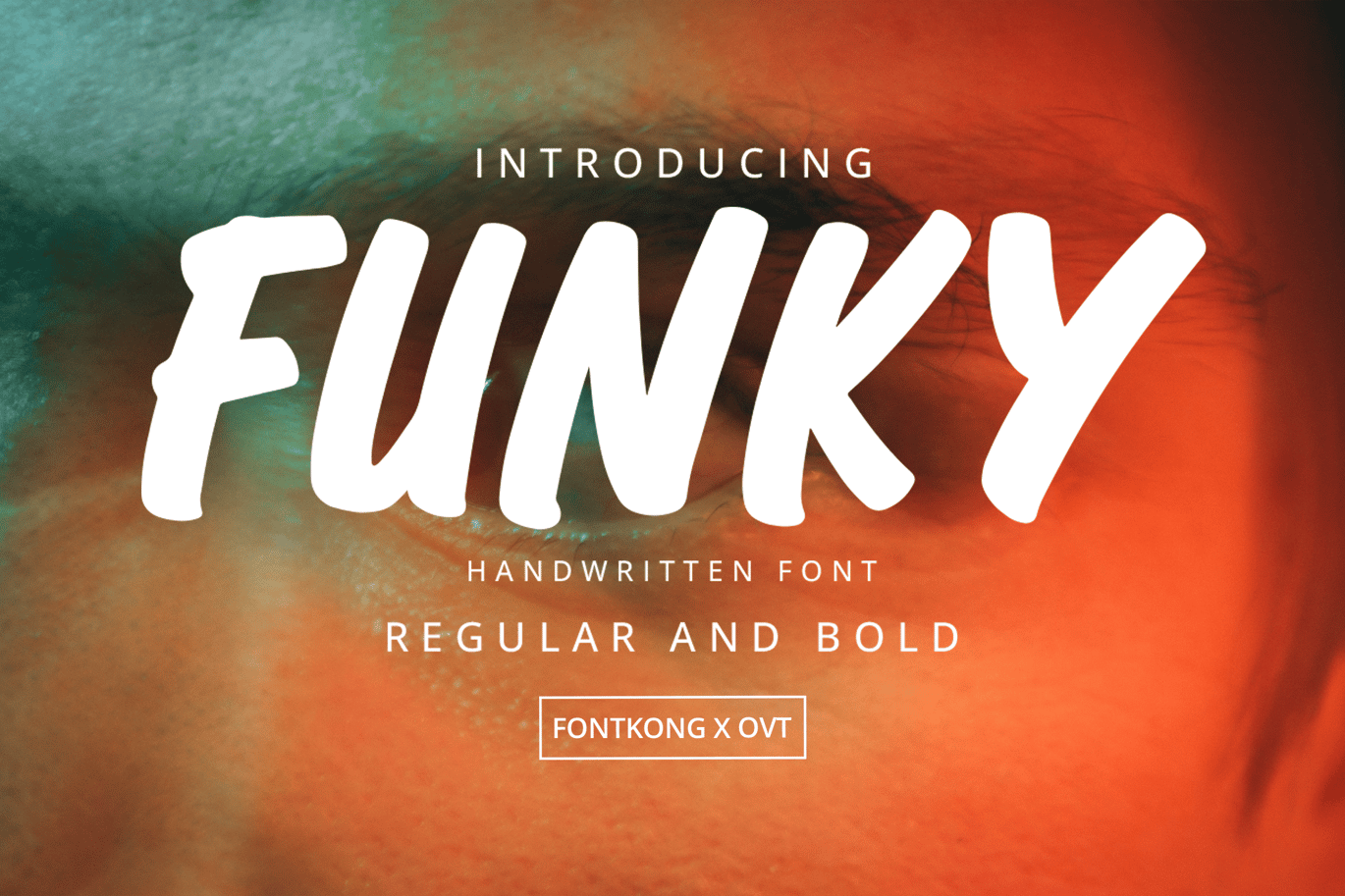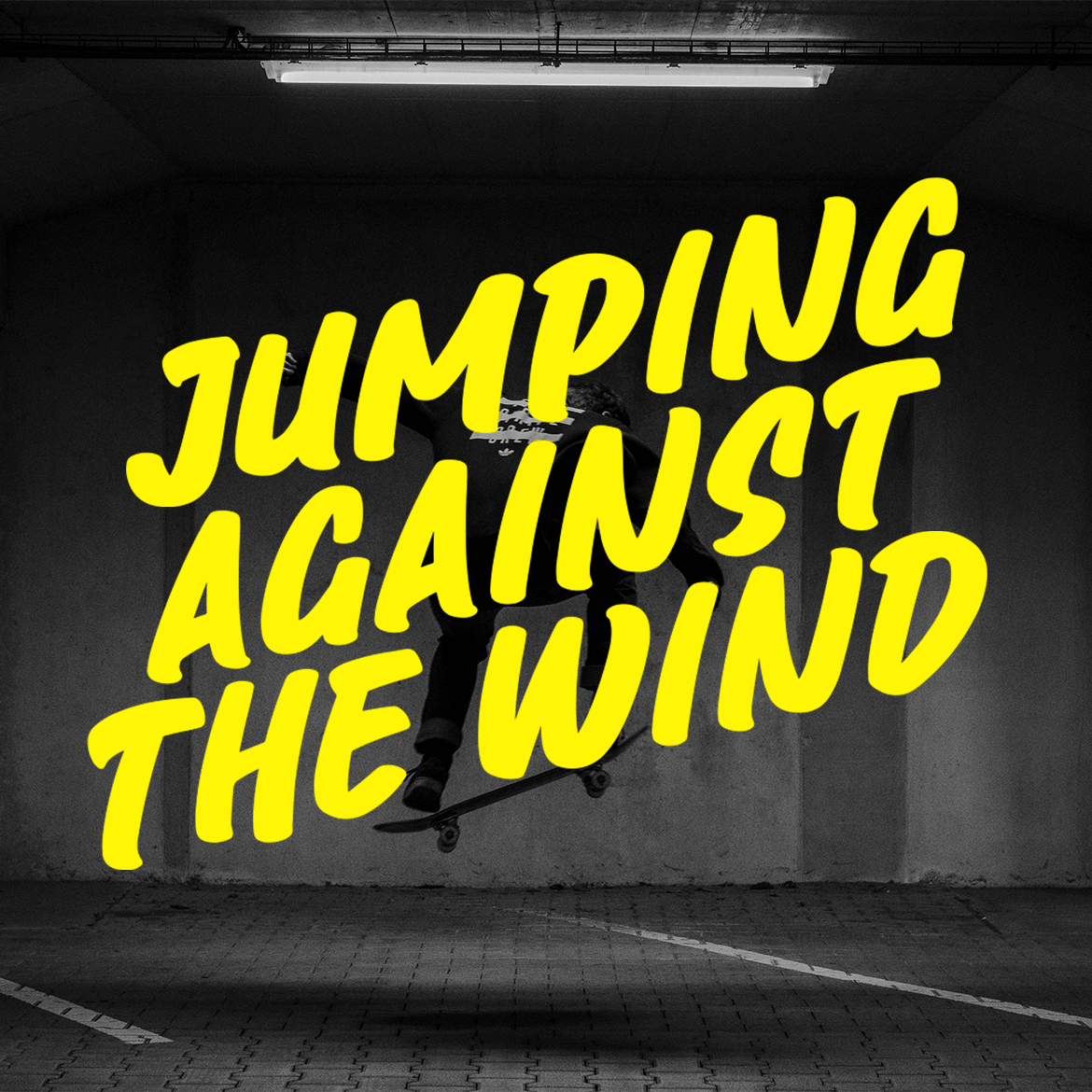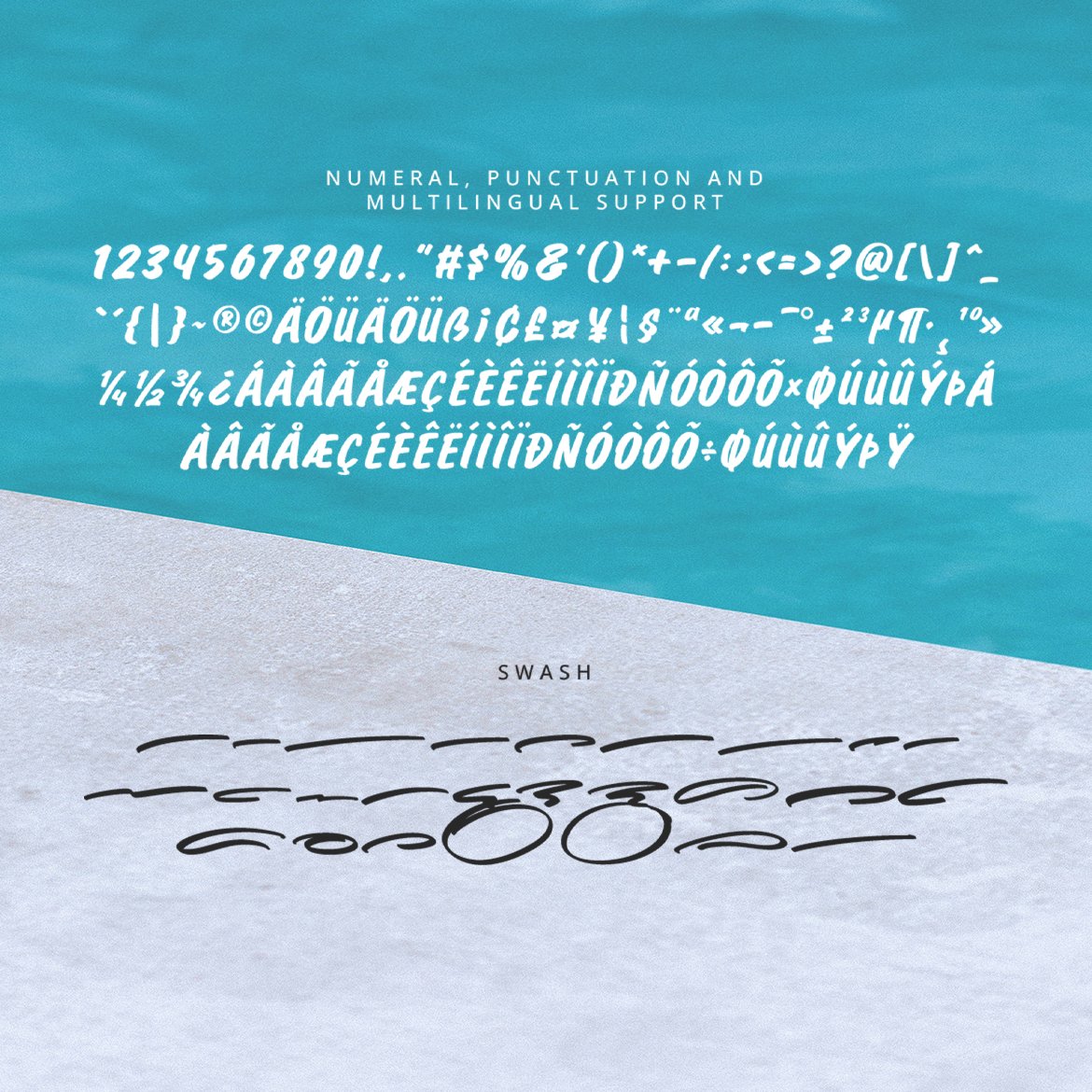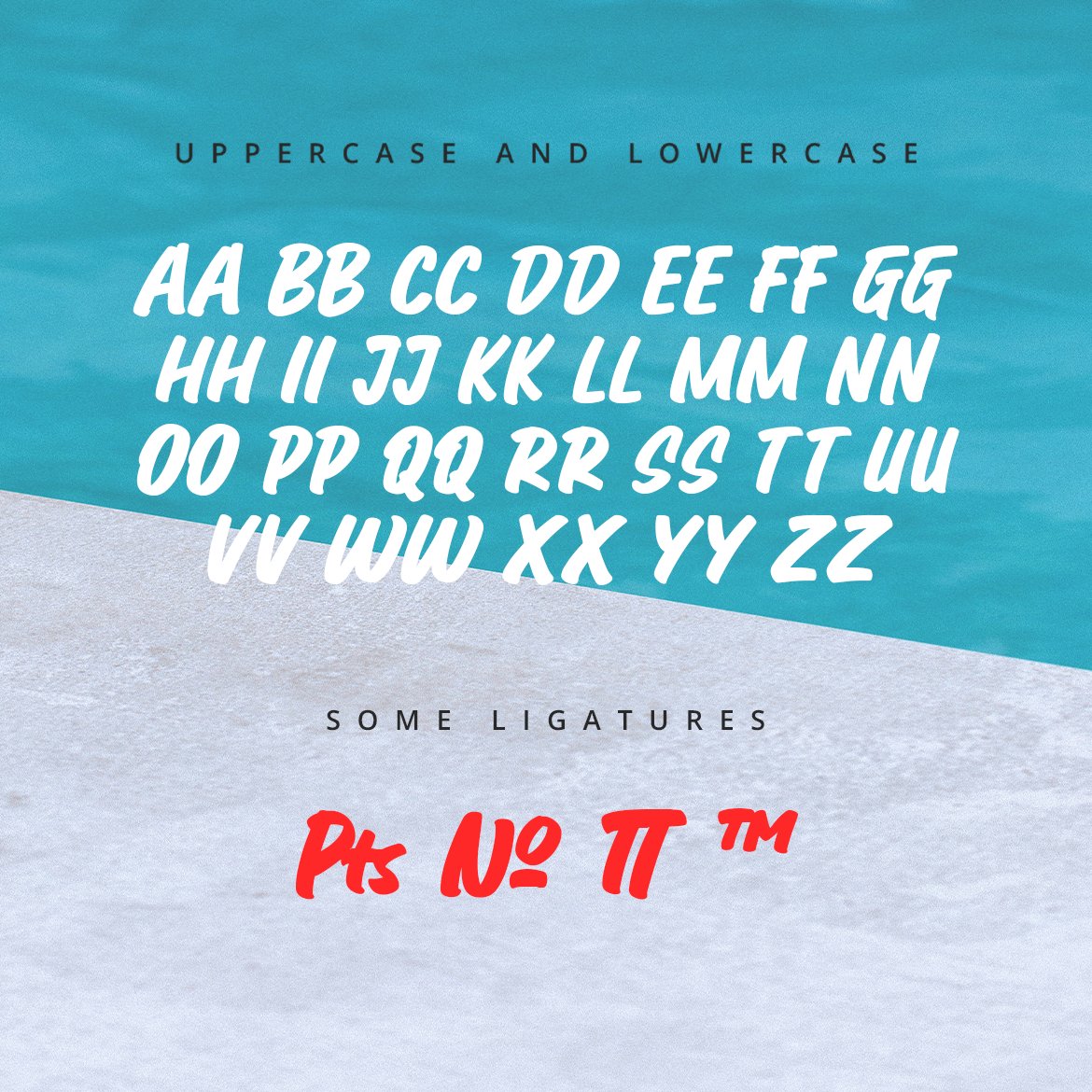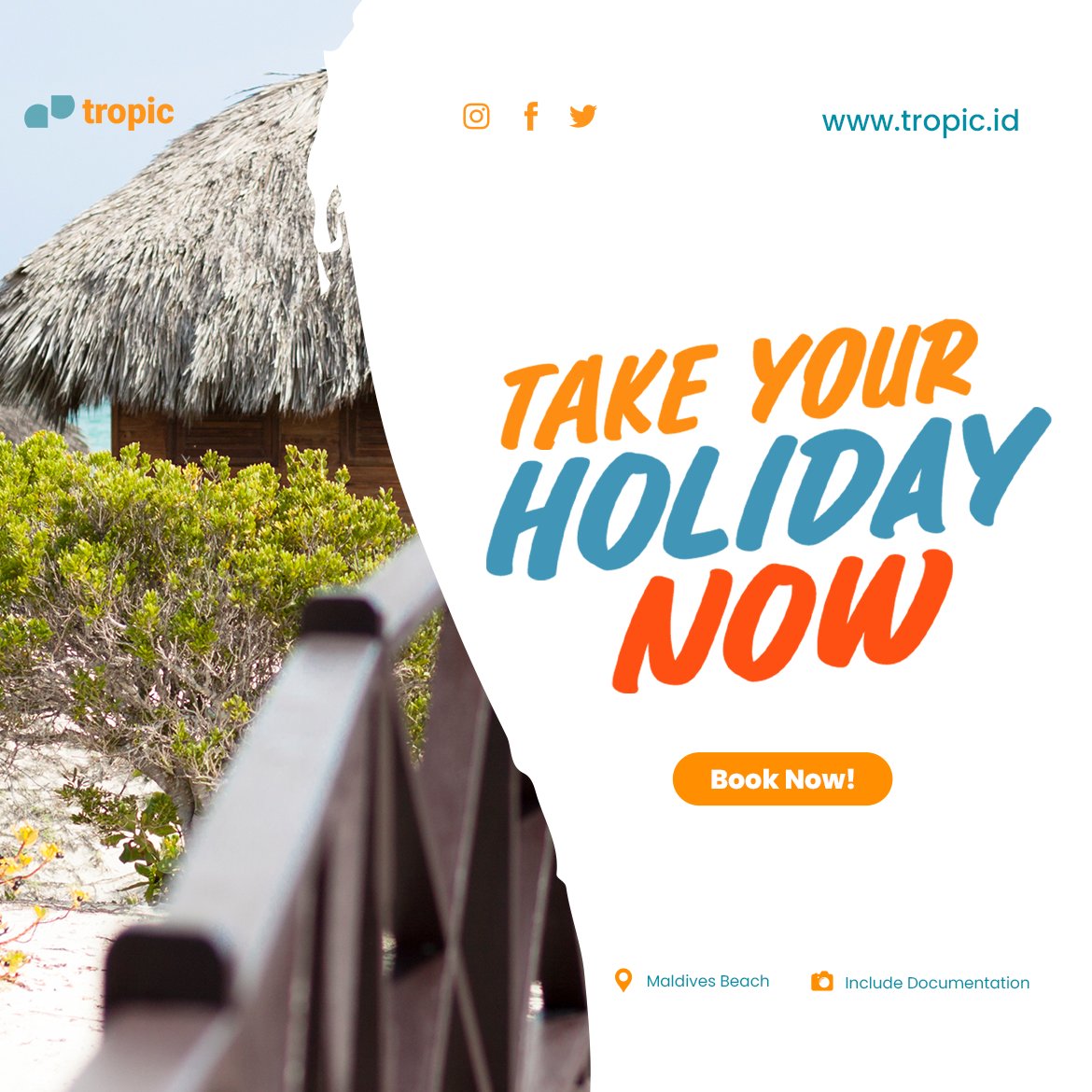
Funky – Handwritten Font
Introducing “Funky,” a vibrant handwritten font that brings a playful and energetic touch to your designs. Perfect for creatives, designers, and anyone looking to add a fun and whimsical vibe to their projects, Funky captures the spontaneity and charm of true handwriting.
Ideal for greeting cards, invitations, social media graphics, and branding materials, Funky’s lively strokes and quirky character shapes provide a distinctive and joyful aesthetic. Each letter is meticulously crafted to reflect the carefree and unique style of hand-drawn lettering, ensuring your designs stand out with a personal and cheerful touch.
The “Funky” font includes a full set of uppercase and lowercase letters, numbers, and punctuation marks, offering versatility and flexibility for various design applications. Whether you’re creating delightful invitations or engaging social media content, Funky enhances your projects with its playful and expressive style.
Add a burst of creativity and fun to your designs with Funky, the handwritten font that embodies joyful expression.